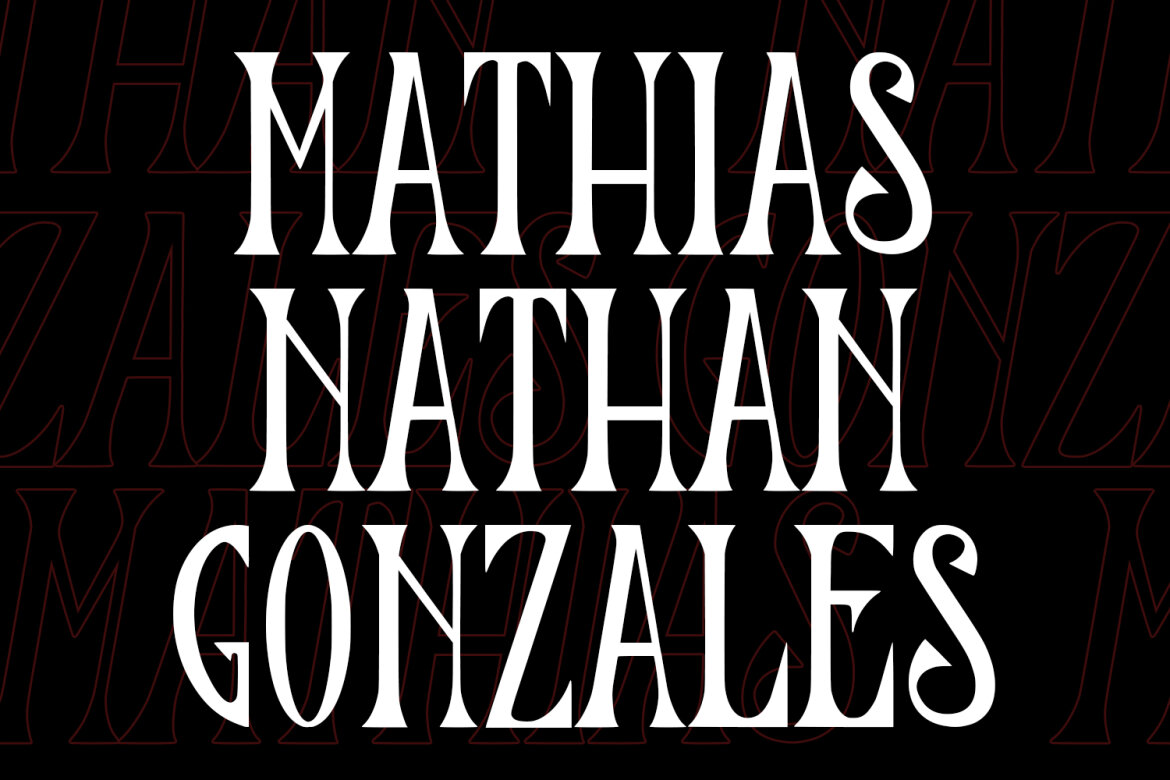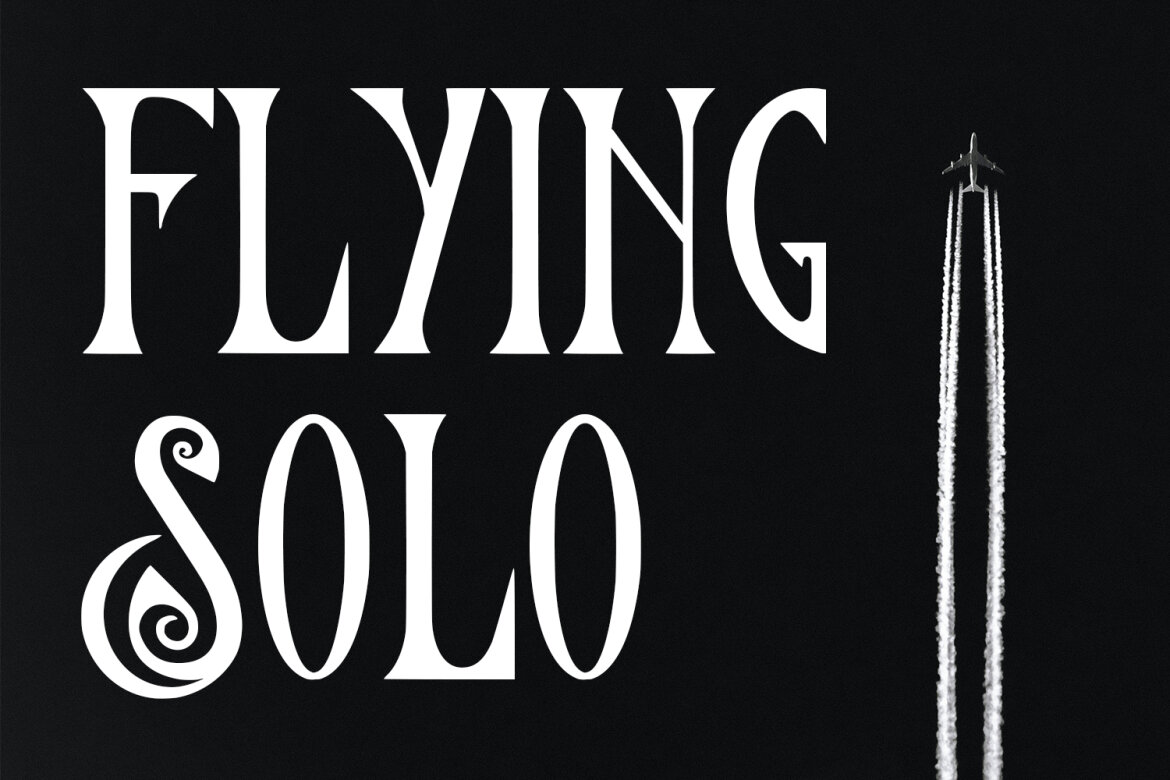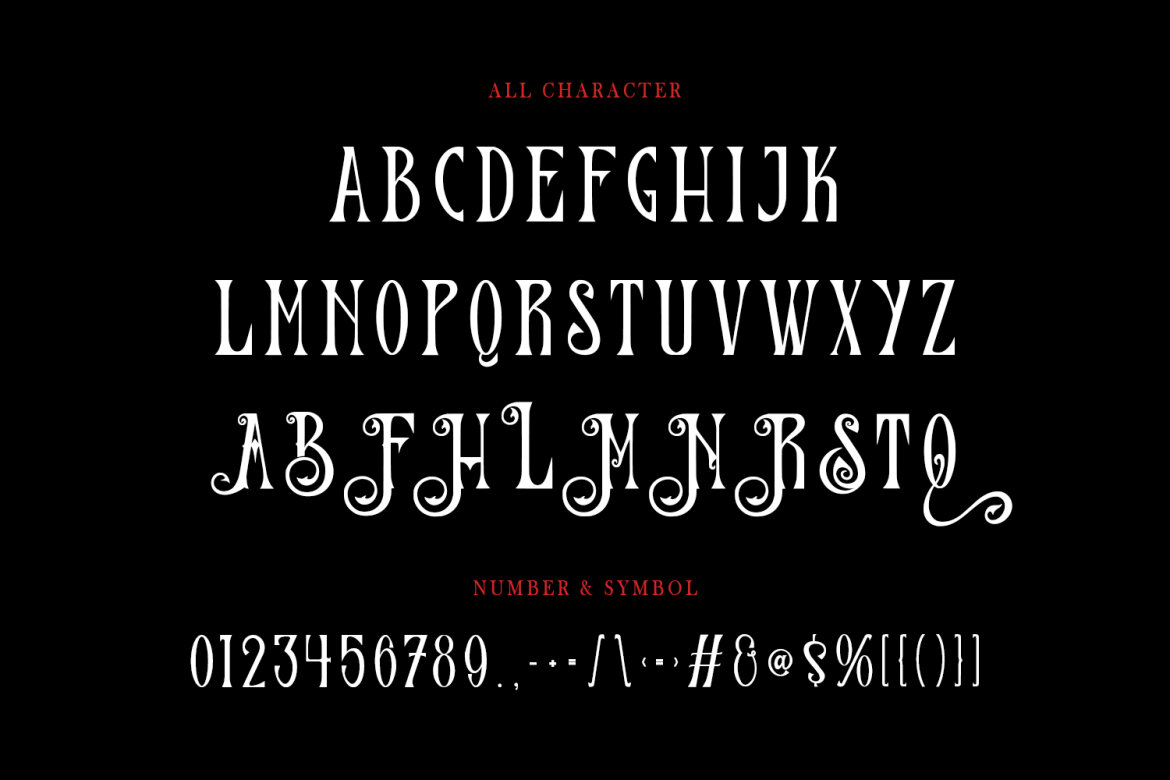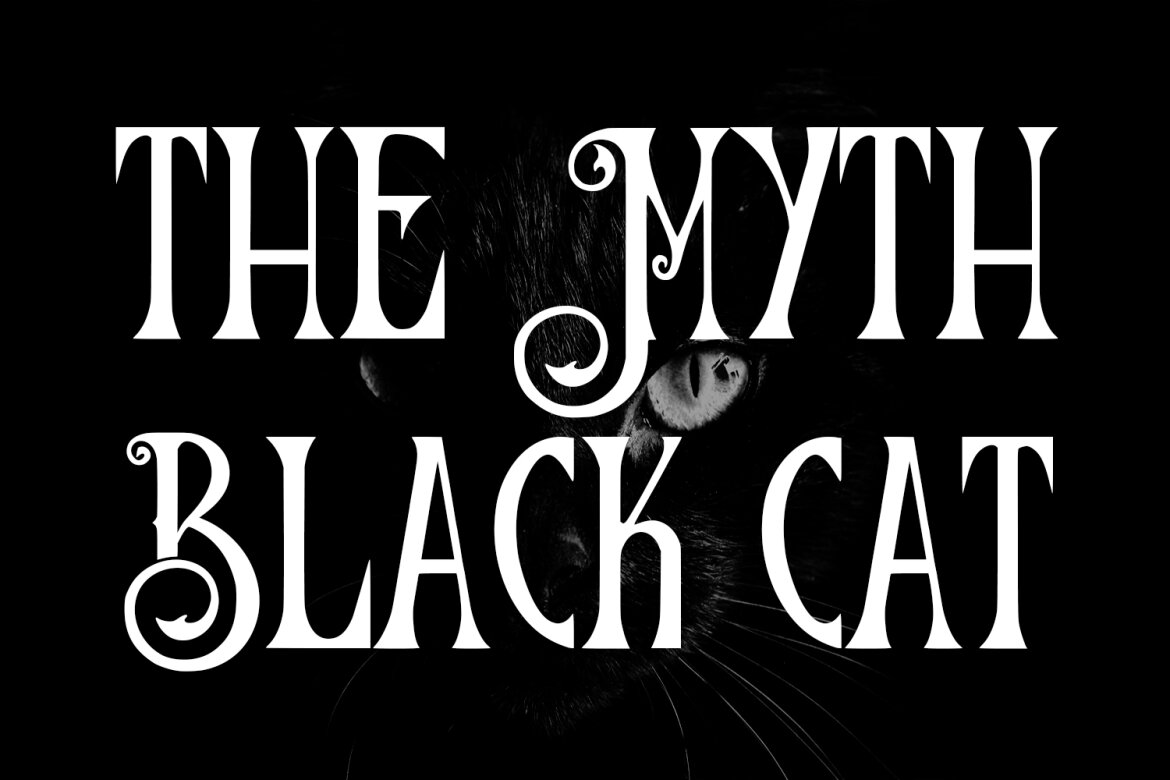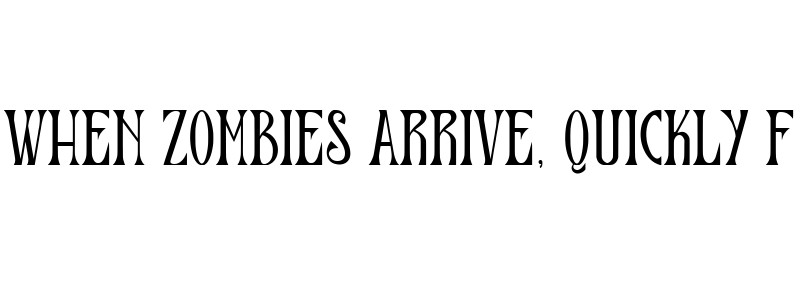
Hallest Blackletter FREE Font
Hallest blackletter display font. Heavy stroke, vintage character with alternates. To give you an extra creative work. Hallest blackletter display font support multilingual language. This font is good for logo design, Social media, Movie Titles, Books Titles, a short text even a long text letter and good for your secondary text font with script or serif. Make a stunning work with Hallest blackletter font.